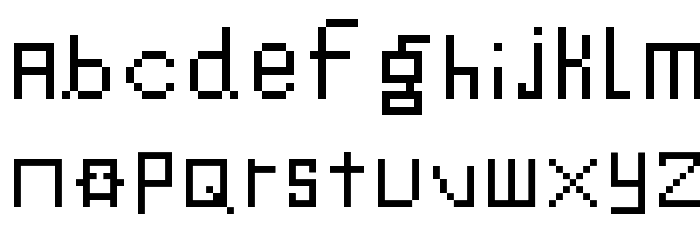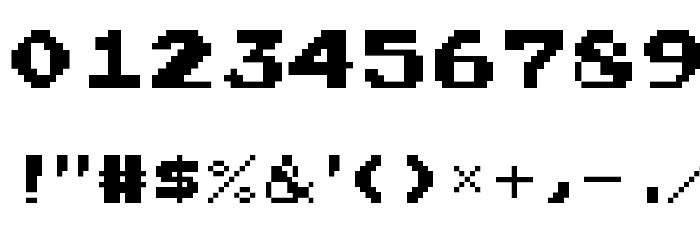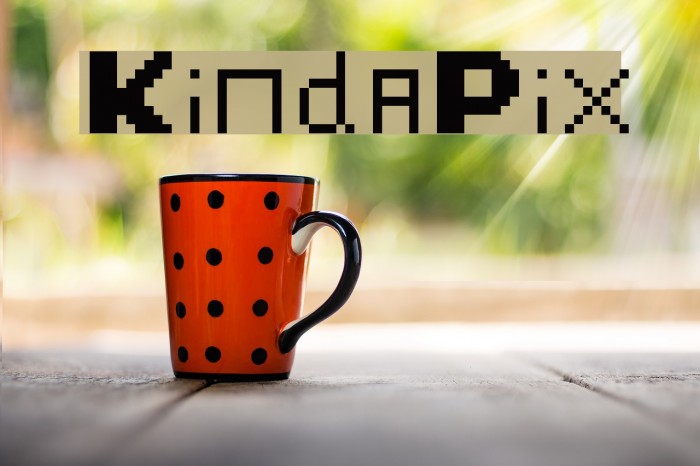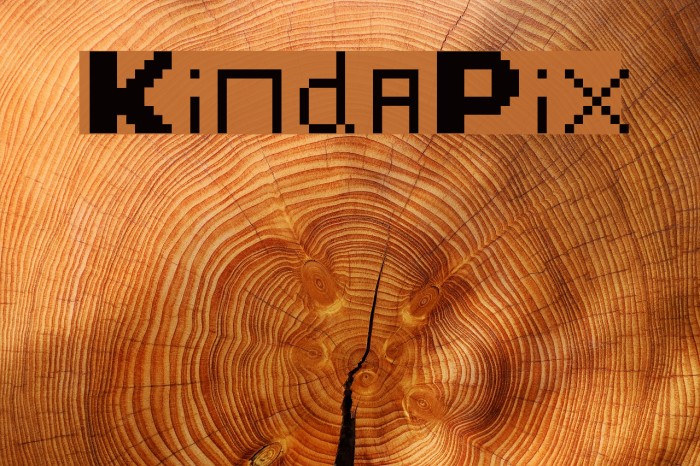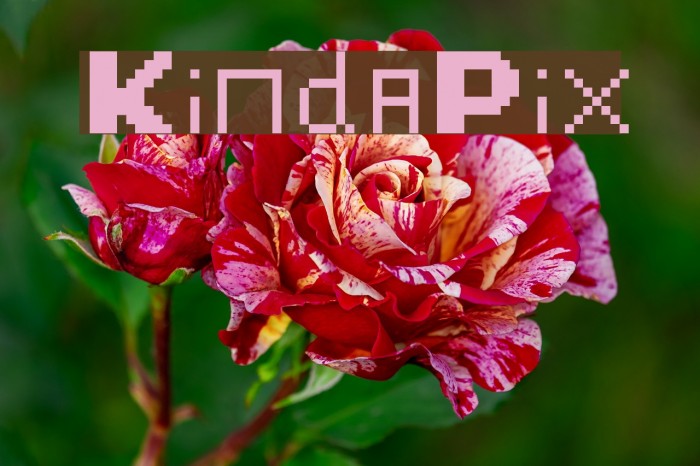
KindaPix Font
This font features a pixelated, blocky design reminiscent of early digital displays and classic video game aesthetics. Each character is constructed with a grid-like precision, giving it a distinctly retro and digital feel. The uppercase and lowercase letters maintain a consistent width, contributing to a uniform appearance across text. Numbers and special characters follow the same pixelated style, ensuring a cohesive look. The font's simplicity and geometric structure make it highly legible, even at smaller sizes, while its unique style adds a playful, nostalgic touch to any project.
A pixelated, retro-style font with a blocky, digital appearance.
- Proposed Projects: Ideal for video game design, digital art projects, retro-themed posters, and any creative work that seeks to evoke nostalgia for early digital aesthetics.
- Overall Style: Retro, Digital
- Use Case: Headlines, Logos, Digital Art